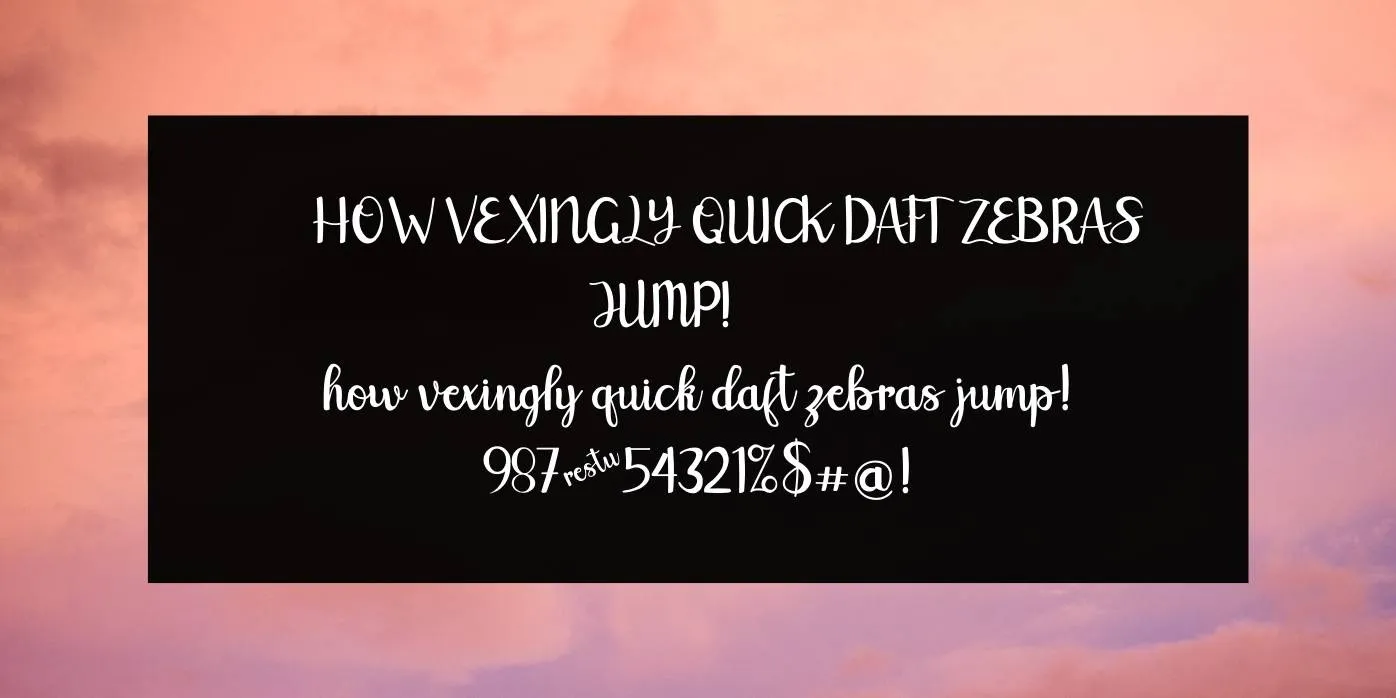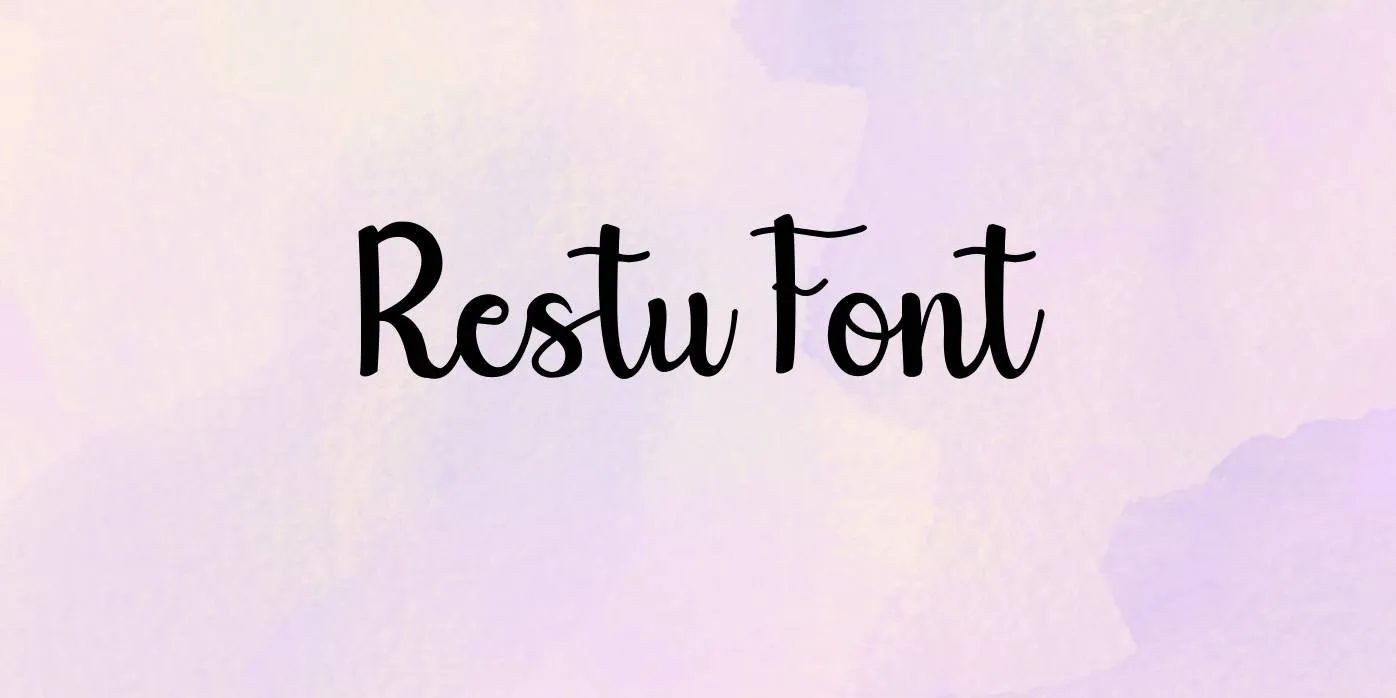
Restu Font
Restu Font is an inspirational typeface that is designed by Pidco Art. In this typeface, every character is carefully created with an extra touch of elegance. In this font style, there is a magical script font and hand lettering styles. Only 1 style is available the regular Restu font.
I hope this font inspires you in your design works, that is the ideal typeface for typography logos designing, handwriting quotes designs, headlines, posters, and also for social media posters & Greeting cards, etc. Usage Restu font is a decorative type of font that every character is carefully created with an extra stylish touch. this is a fashionable font and handwriting style that is used for designing especially in typography logos designing and greeting cards etc. Restu typeface is that type of font that can be used on any of your devices such as MAC, PC, IOS, and Android.
Restu Font is the best font for my Logos design? That typeface is a stylish and decorative typeface that is perfect for designing, especially for typography logos, greeting cards, etc. What fonts are similar to Restu Font? There are many typefaces that are similar to Restu.
But the closest to this typeface are Groce free font, Alaska font, and Magzo font.